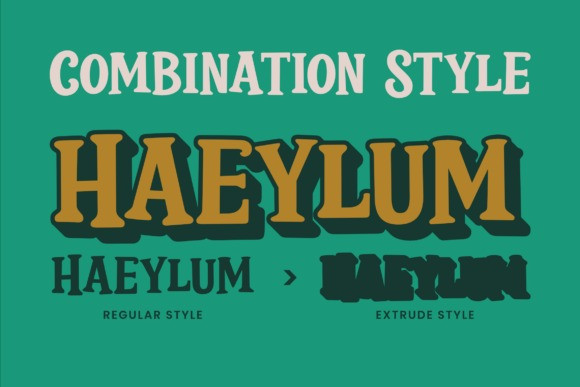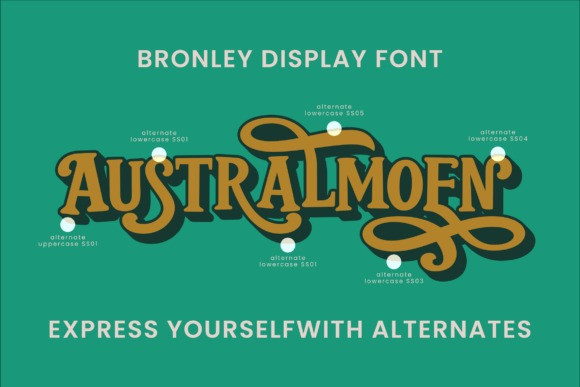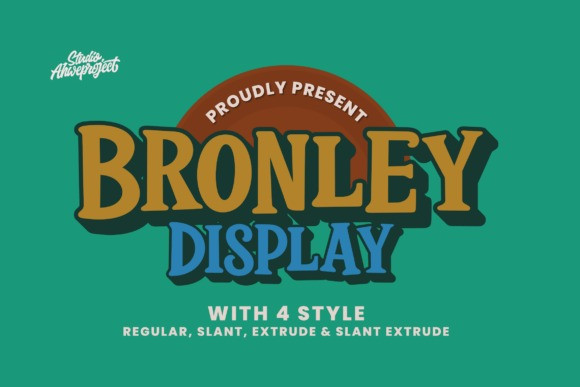
Bronley Display Font
Bronley Display Font is a bold retro font with strong curves and vintage charm. Perfect for posters, logos, packaging, and headlines, it comes with 4 versatile styles: Regular, Slant, Extrude, and Slant Extrude.
Its playful yet powerful design makes your projects stand out with a nostalgic touch. Ideal for branding, advertising, and creative projects that need a bold statement.